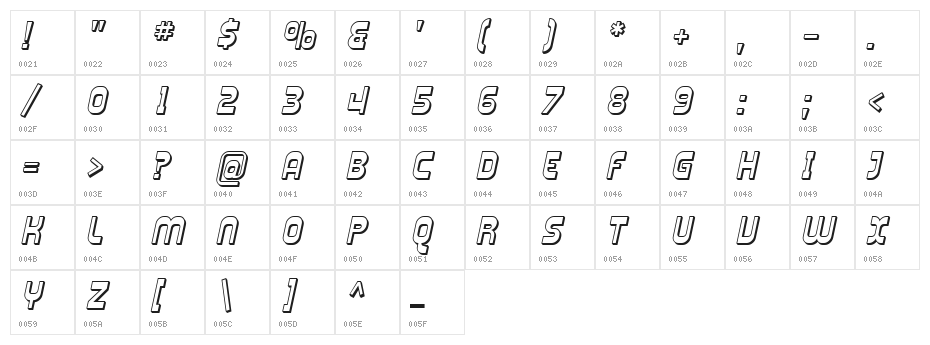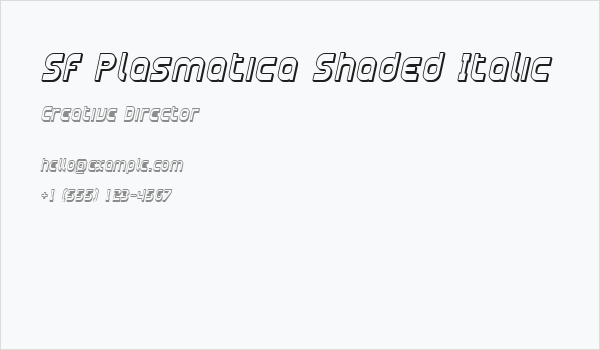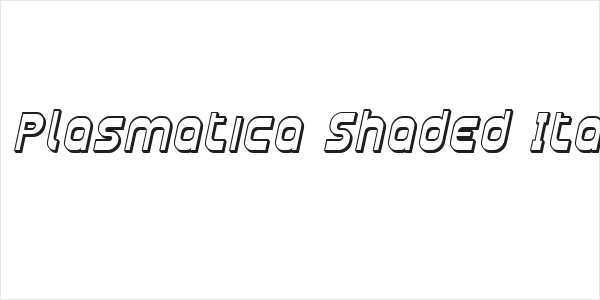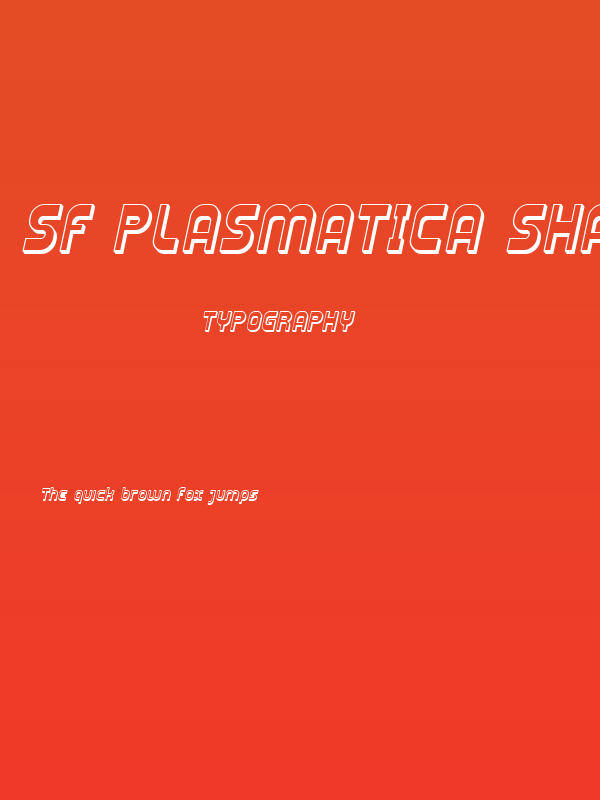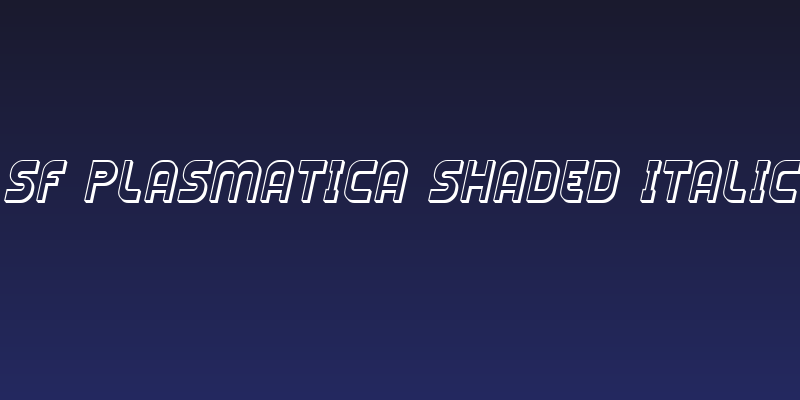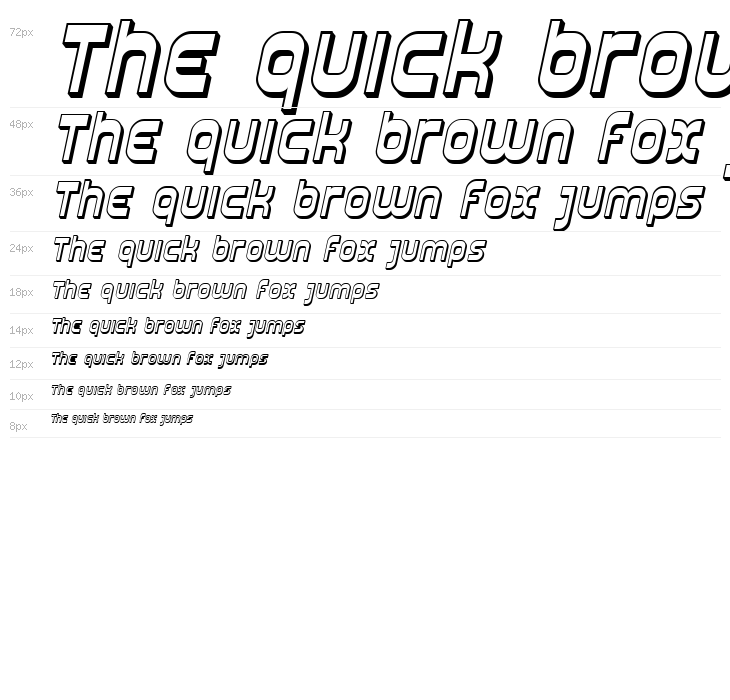
SF Plasmatica Shaded Italic Font
SF Plasmatica Shaded Italic Description
This font features a futuristic and dynamic design with a shaded, three-dimensional effect that gives it a sense of depth and movement. The italicized style adds a forward-leaning energy, making it ideal for projects that require a modern and edgy look. The characters are bold and well-defined, with a consistent stroke width that enhances readability. The uppercase and lowercase letters maintain a uniform appearance, while the numerals and special characters are designed to complement the overall aesthetic. This font is perfect for creating eye-catching headlines, logos, and other design elements that need to stand out.
Proposed ProjectsIdeal for sci-fi themed designs, tech company logos, video game titles, and modern advertising campaigns.